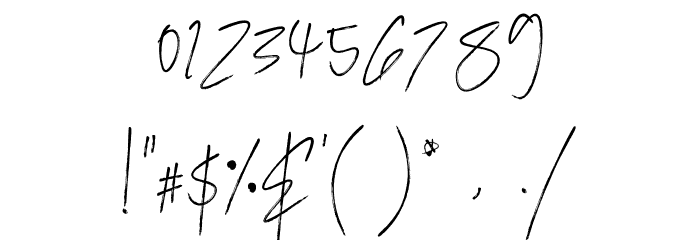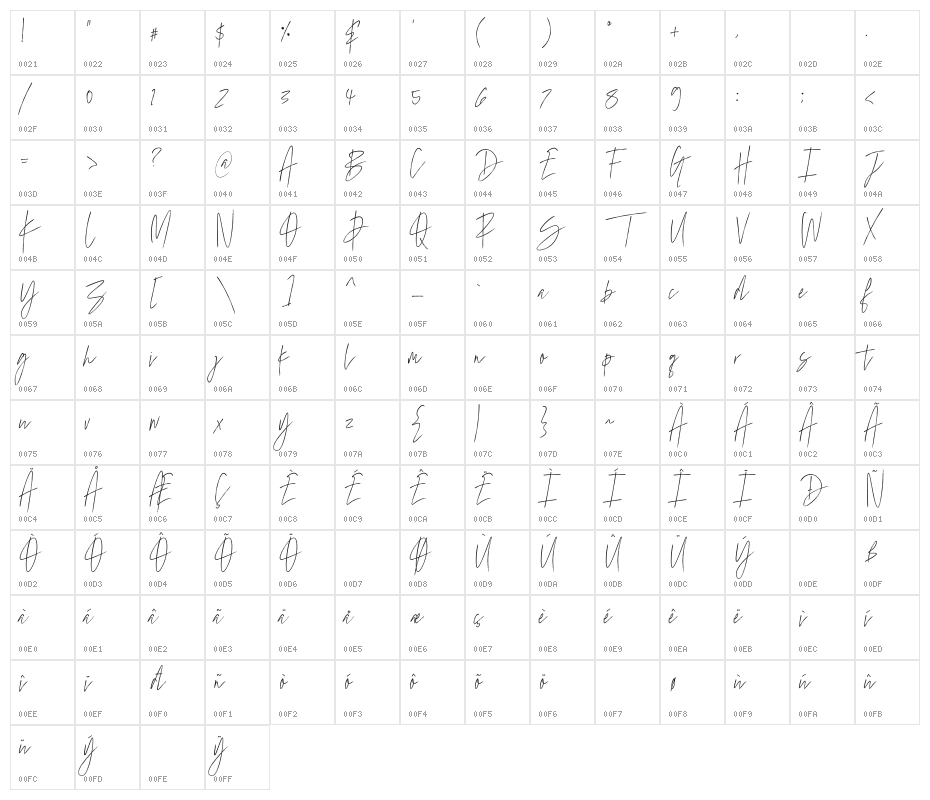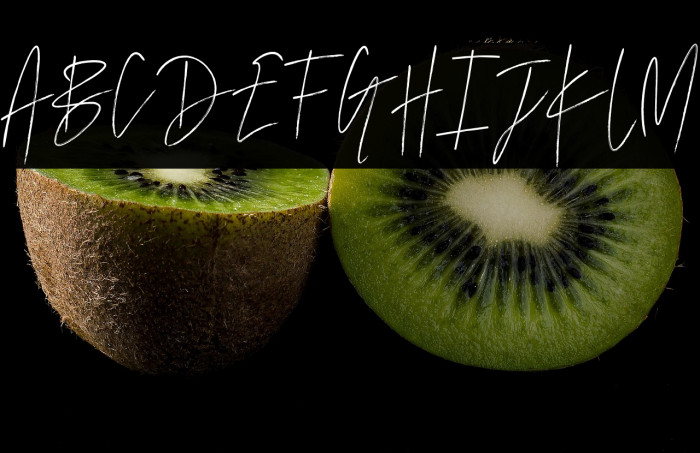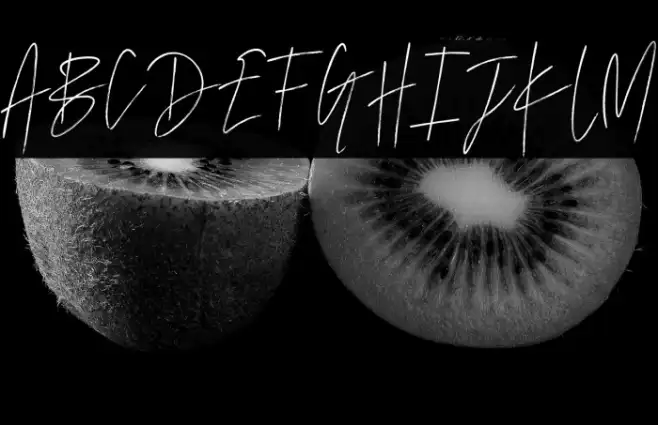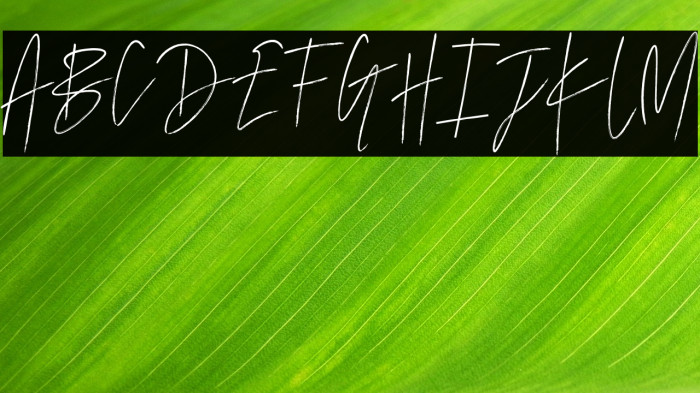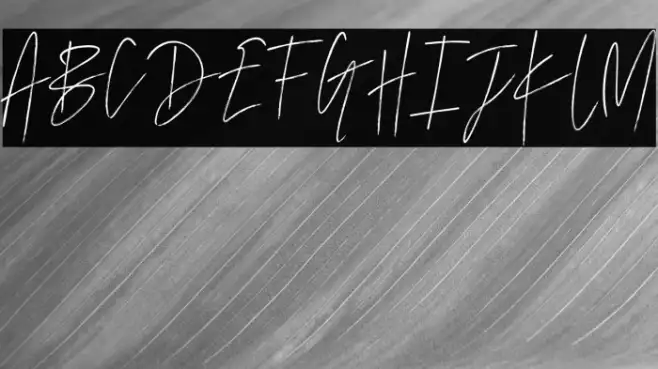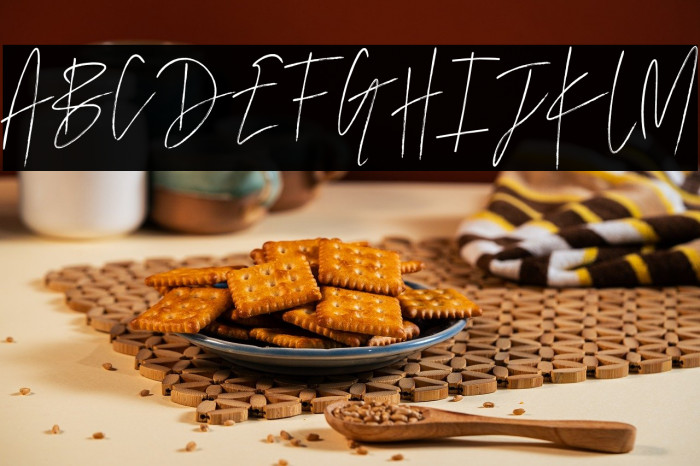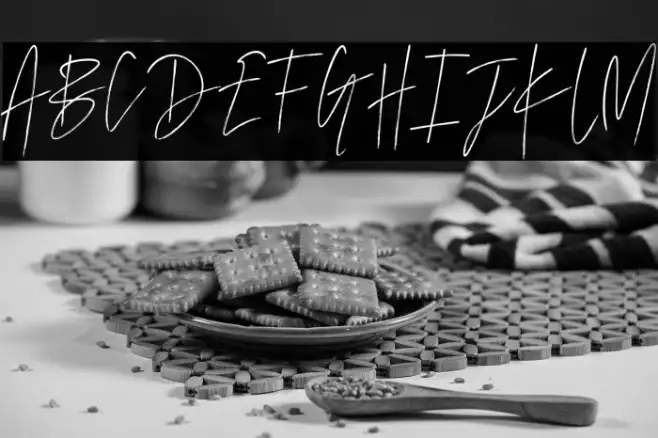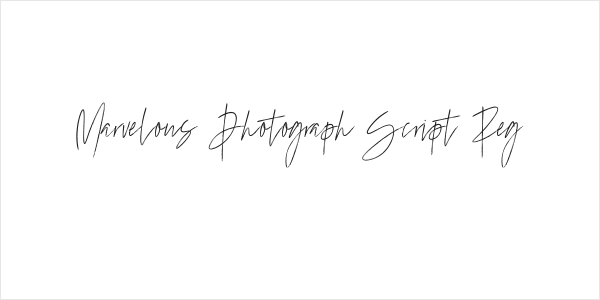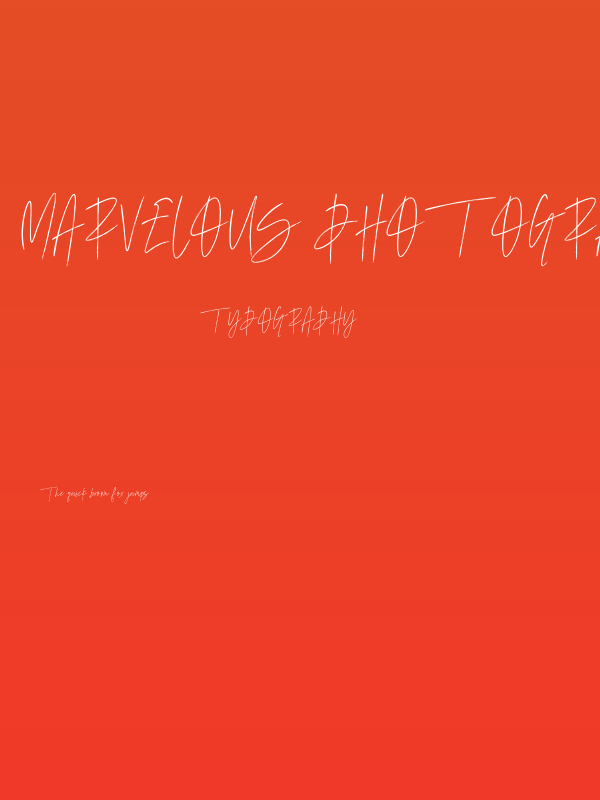
Marvelous Photograph Script Reg Font
Marvelous Photograph Script Reg Description
This font exudes a casual, handwritten style with a touch of elegance, characterized by its fluid and slightly erratic strokes. The uppercase letters are tall and slender, while the lowercase letters maintain a consistent flow, enhancing the script's natural appearance. The numerals are distinct yet harmonize well with the overall aesthetic. Special characters are integrated seamlessly, maintaining the font's cohesive look. The font's organic feel makes it suitable for projects that require a personal touch, such as invitations or greeting cards.
| Proposed Projects | Ideal for wedding invitations, personal branding, greeting cards, and artistic projects. |